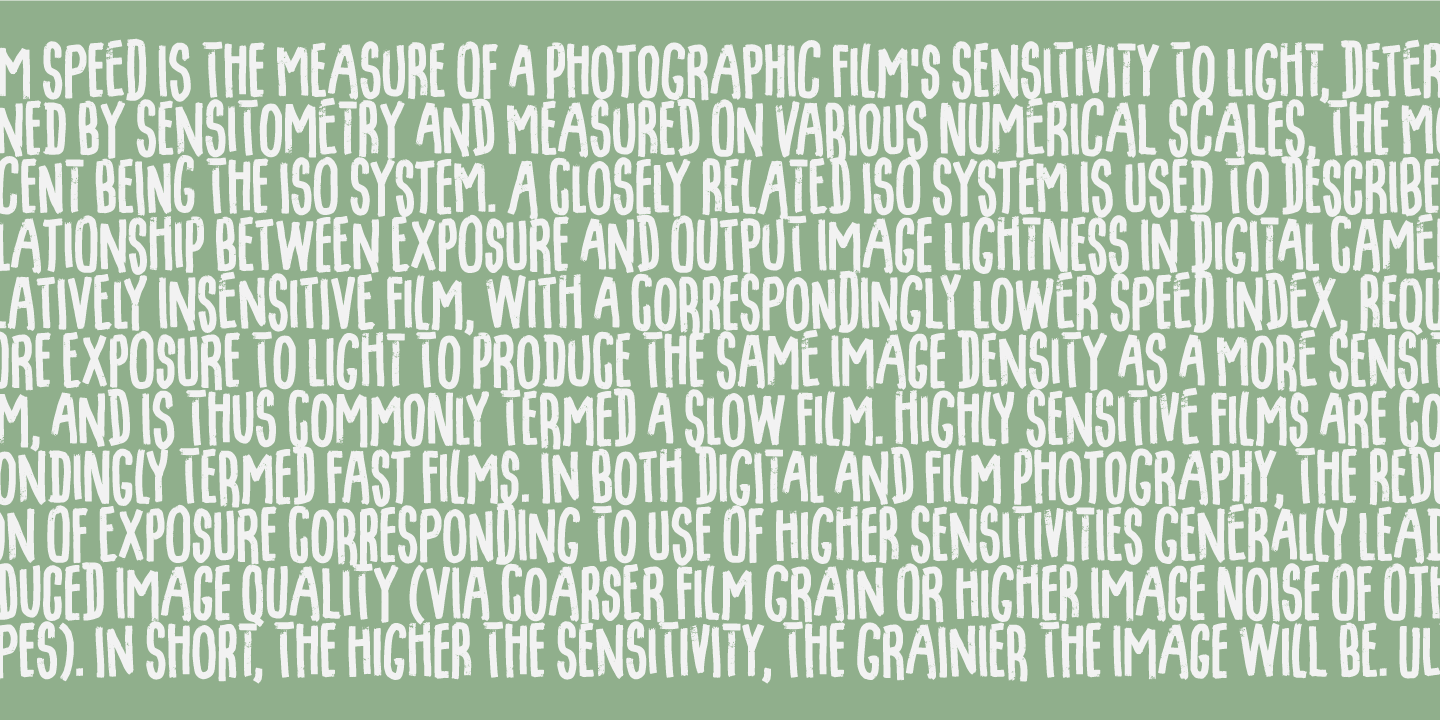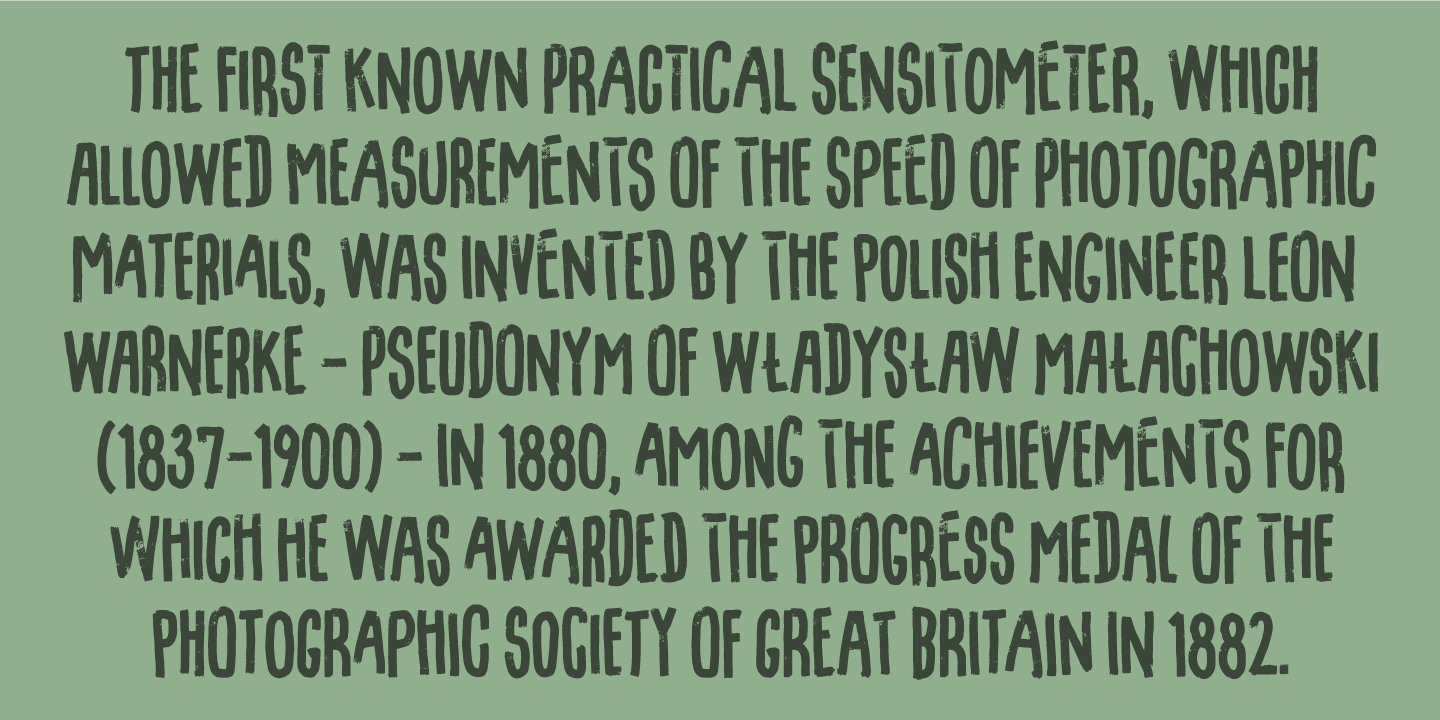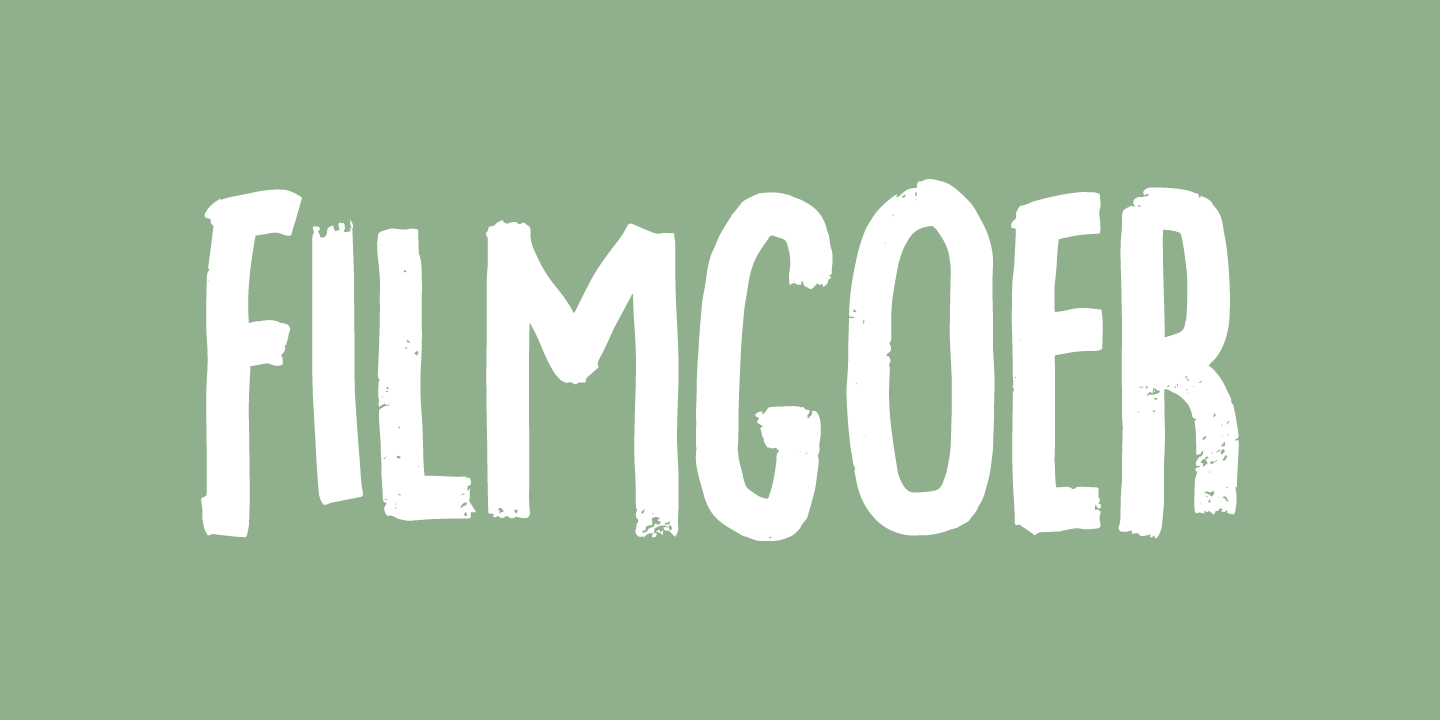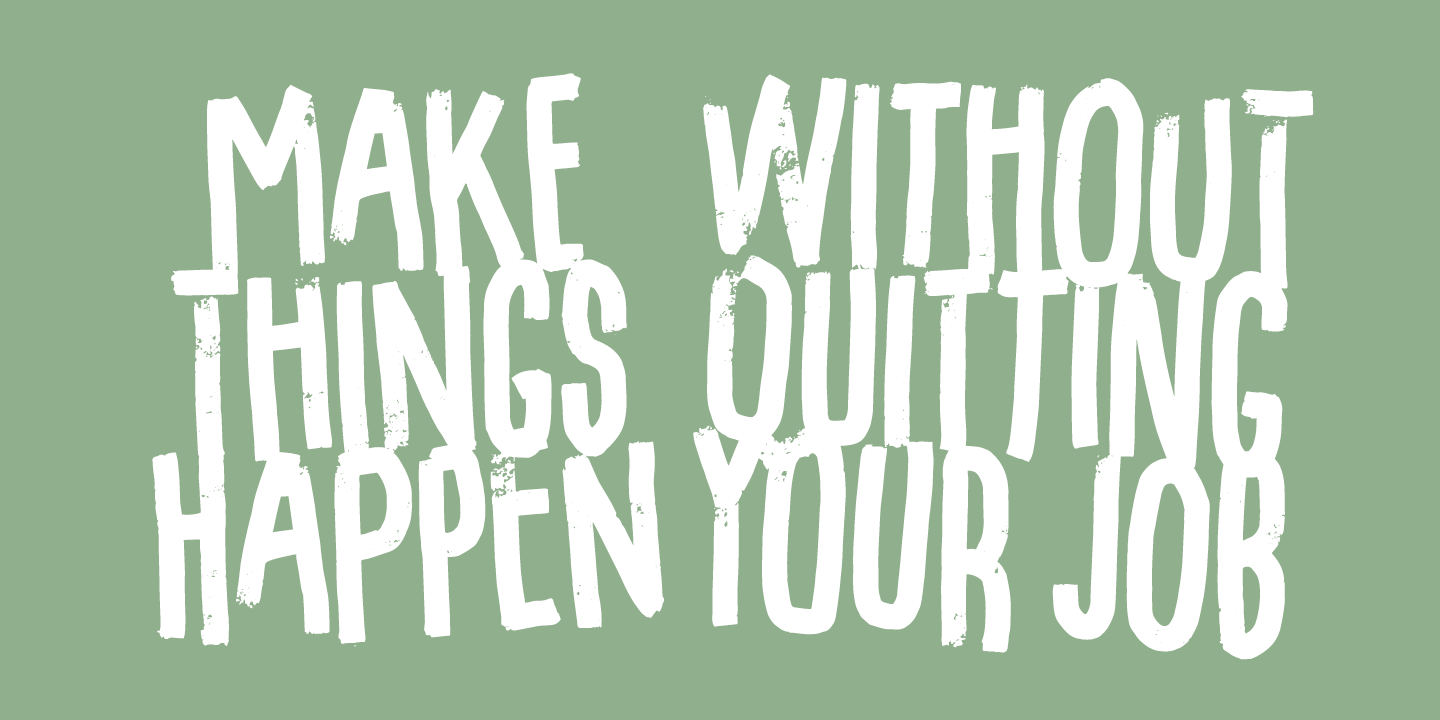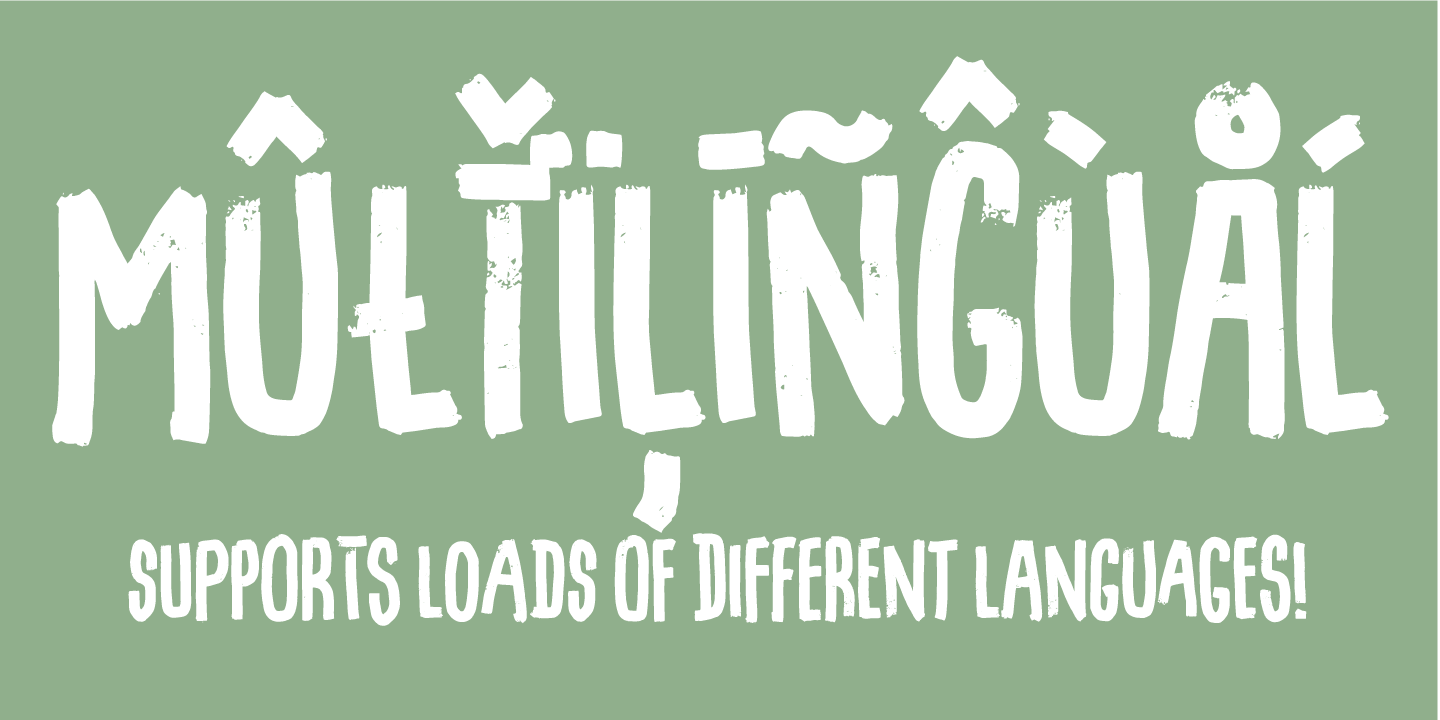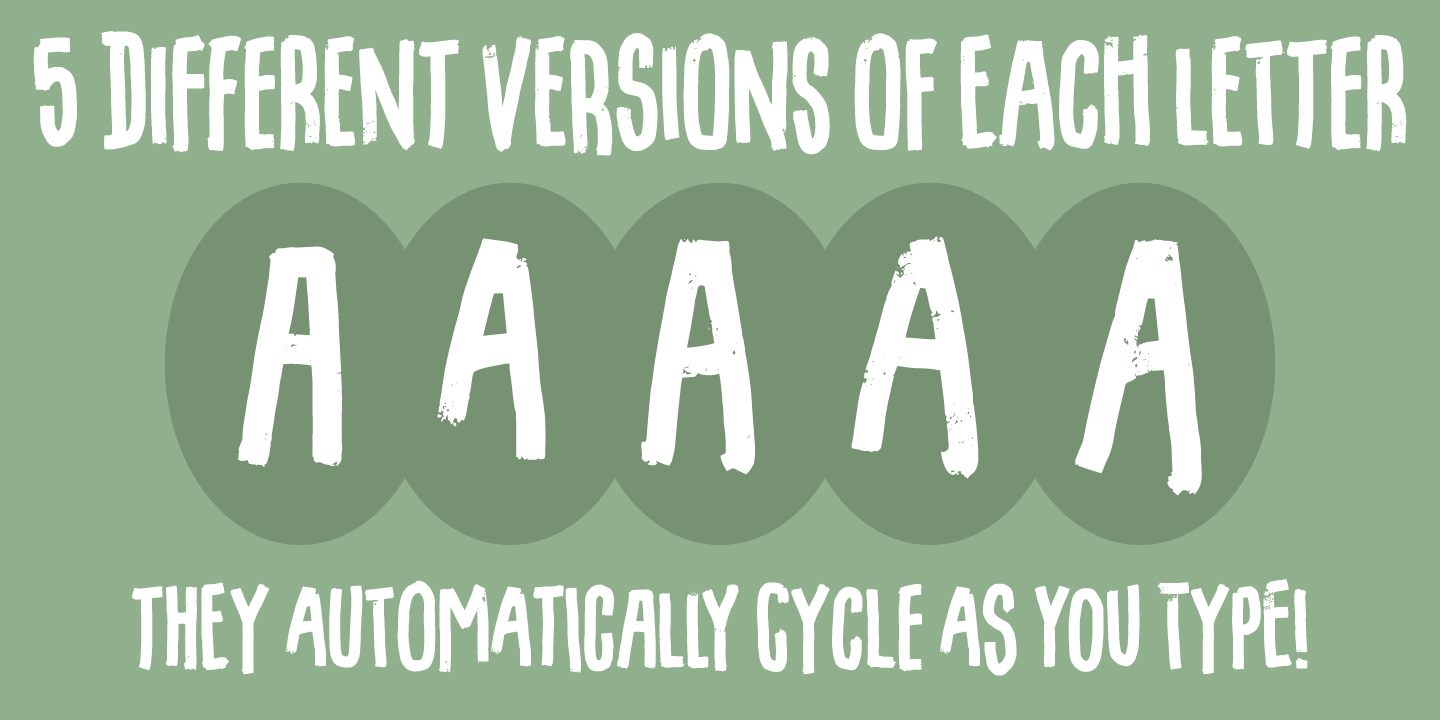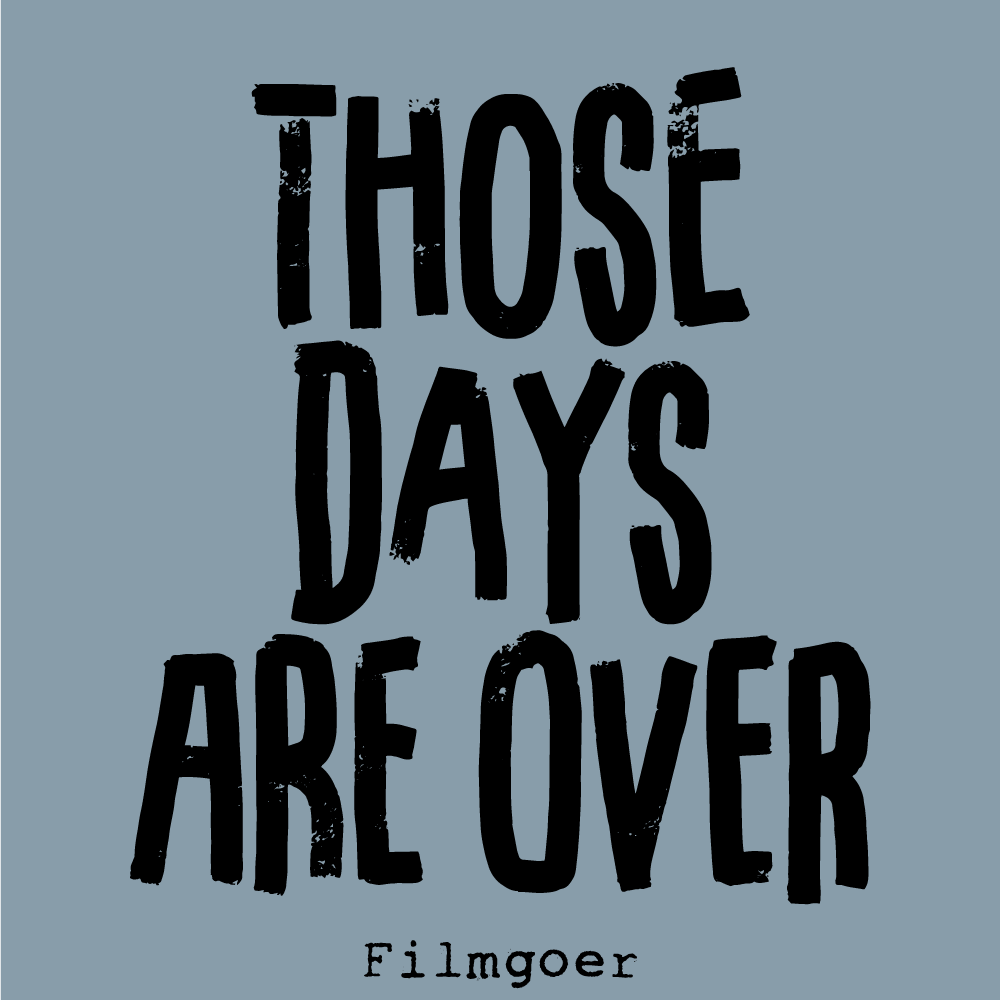
Filmgoer
I love watching movies, and I love going to the movies!
Actually an old movie poster inspired me to do this font! The movie was a low budget horror movie, but the lettering wasn't that horrifying that it didn't inspire me to do the font!
The font has multilingual support as well as contextual alternates!